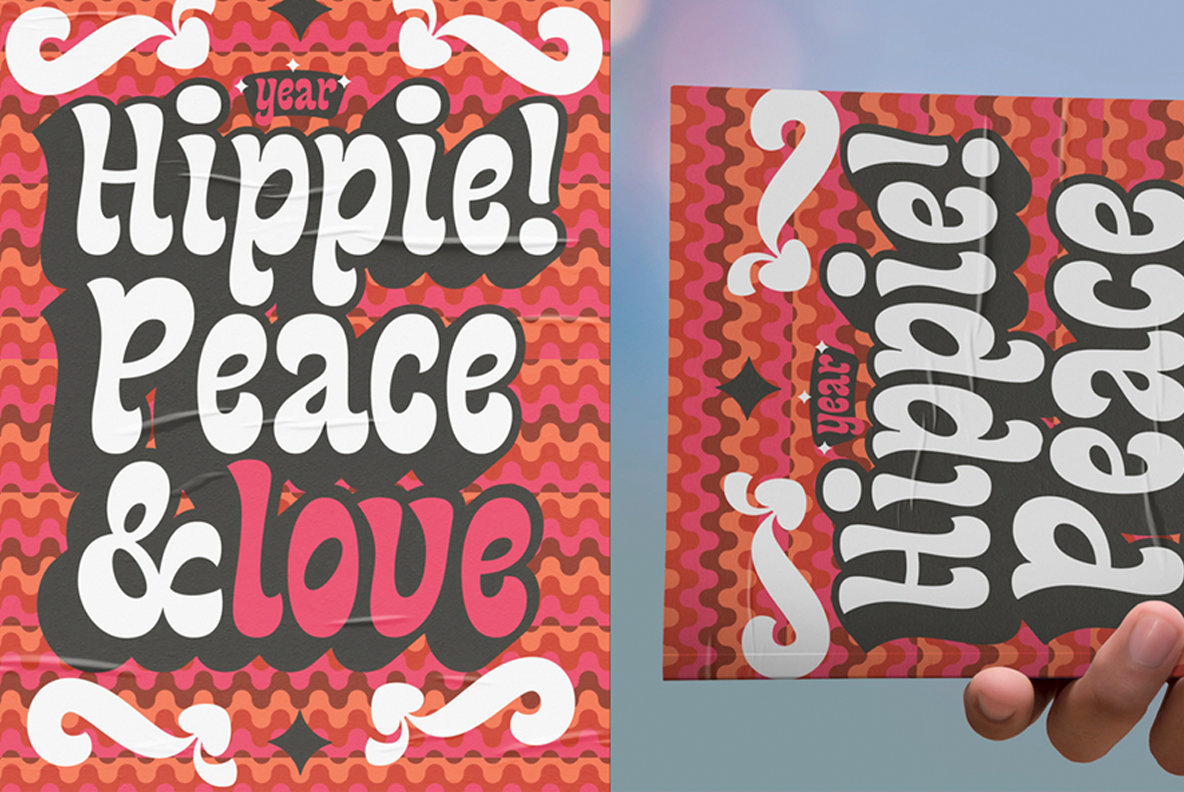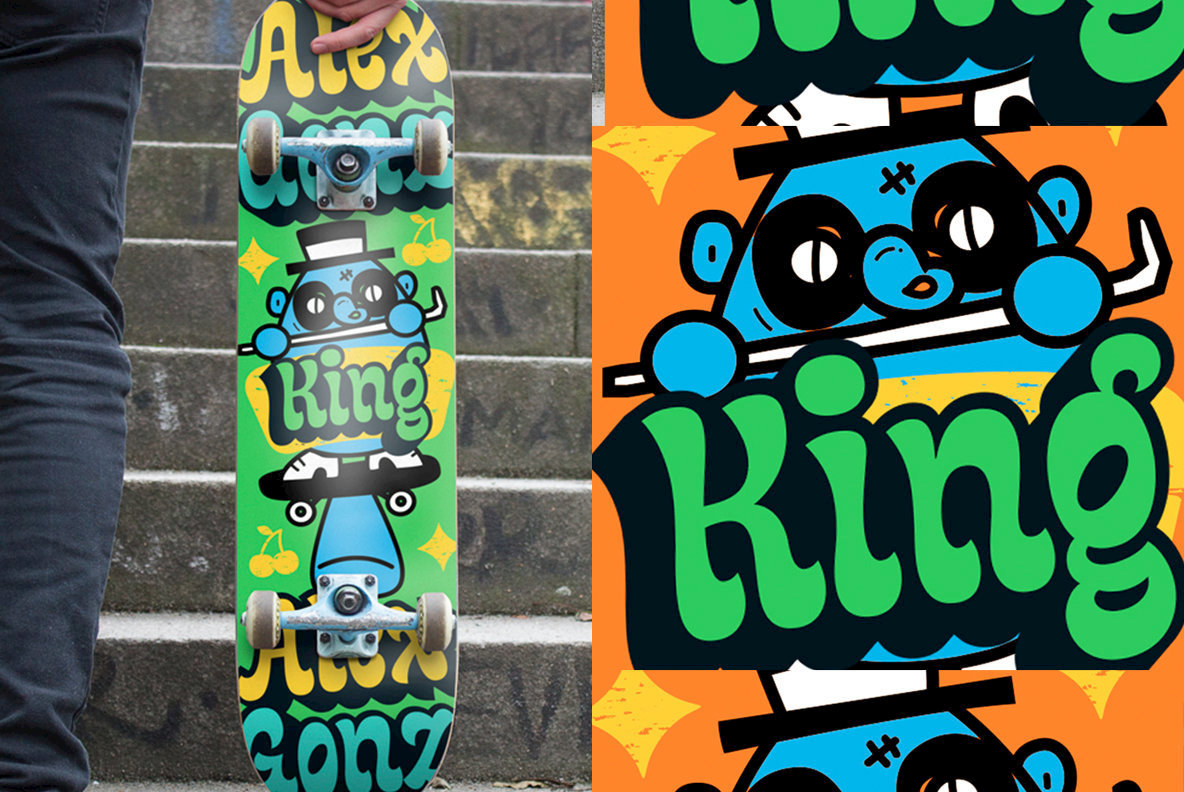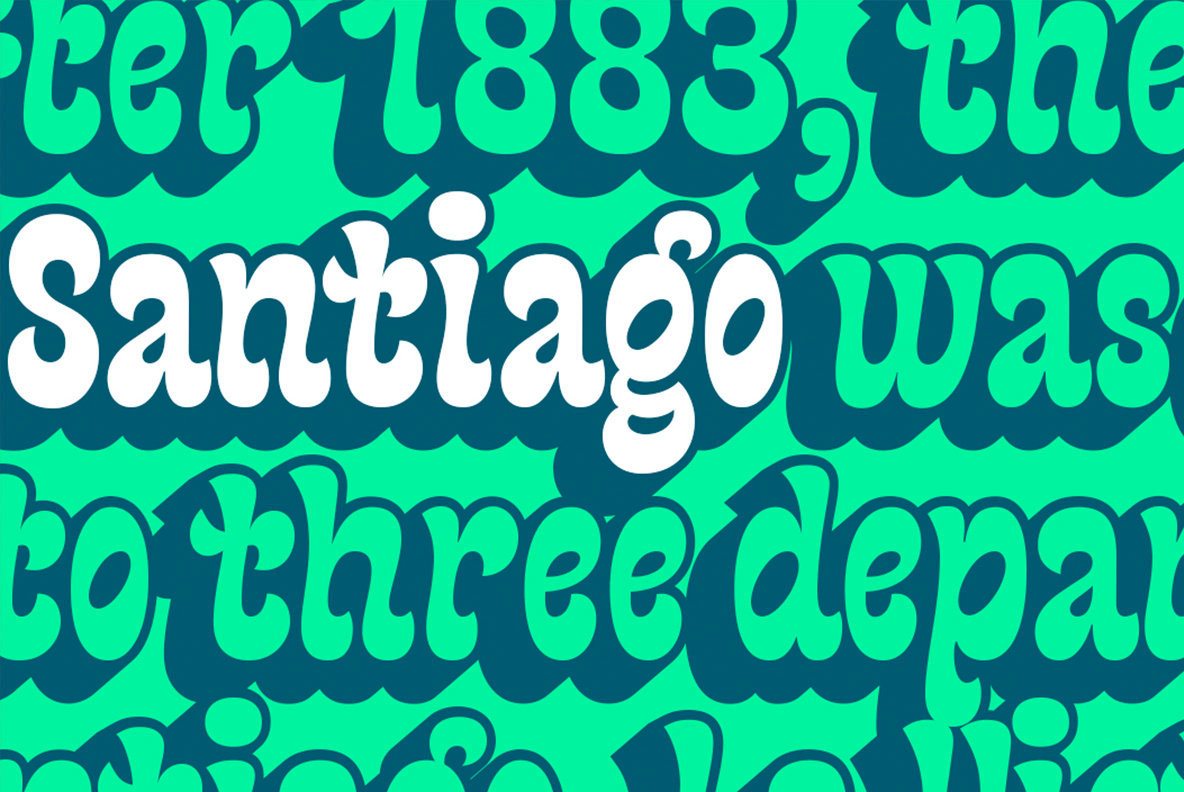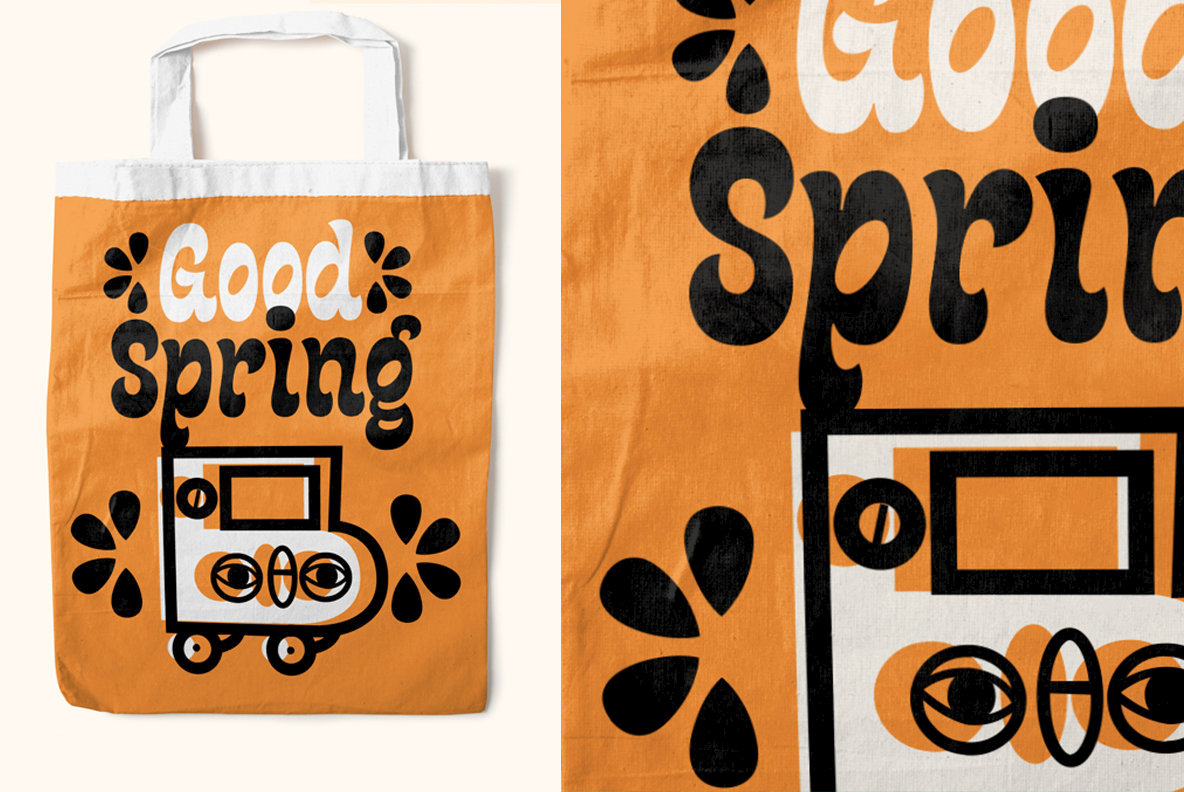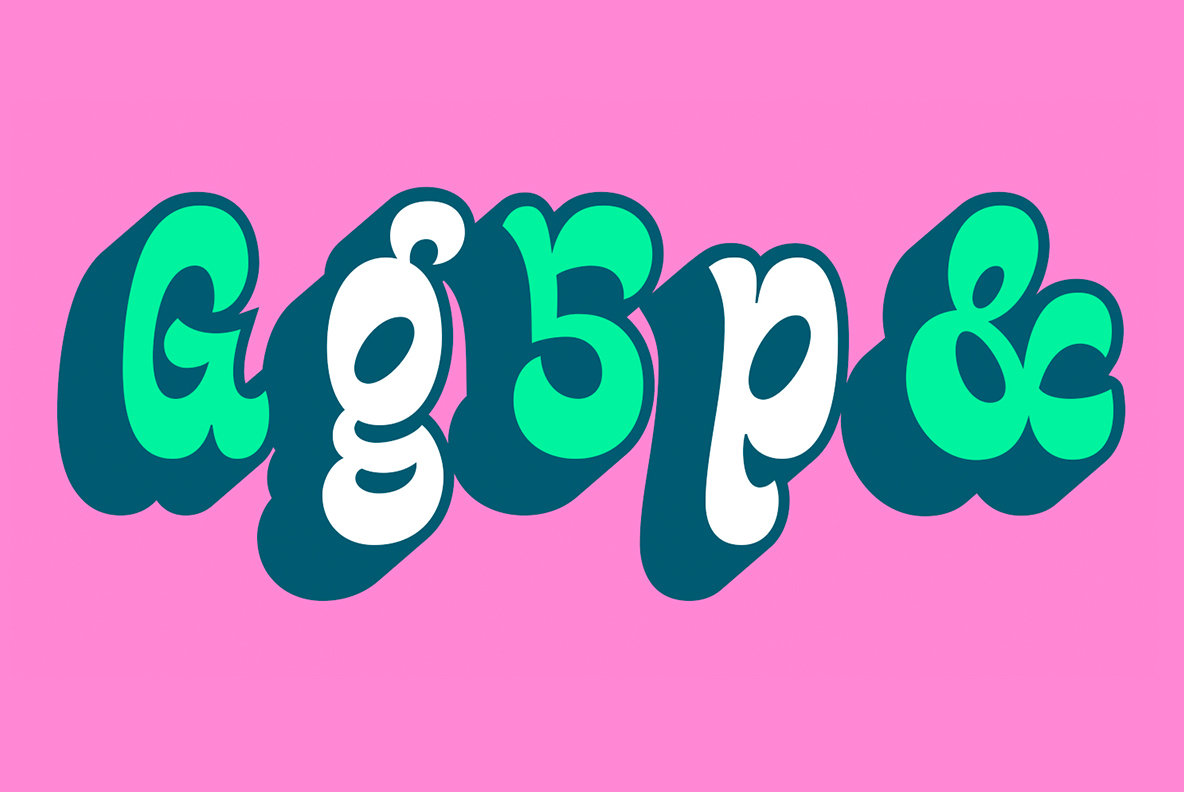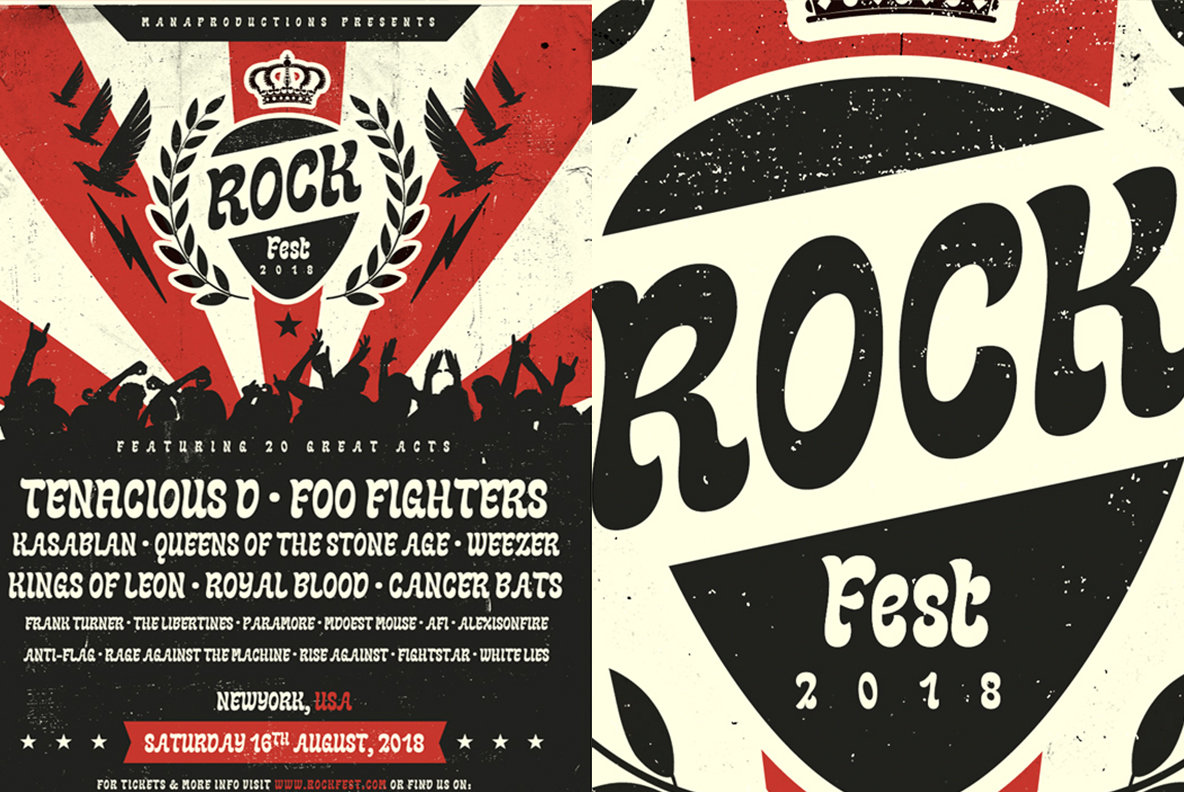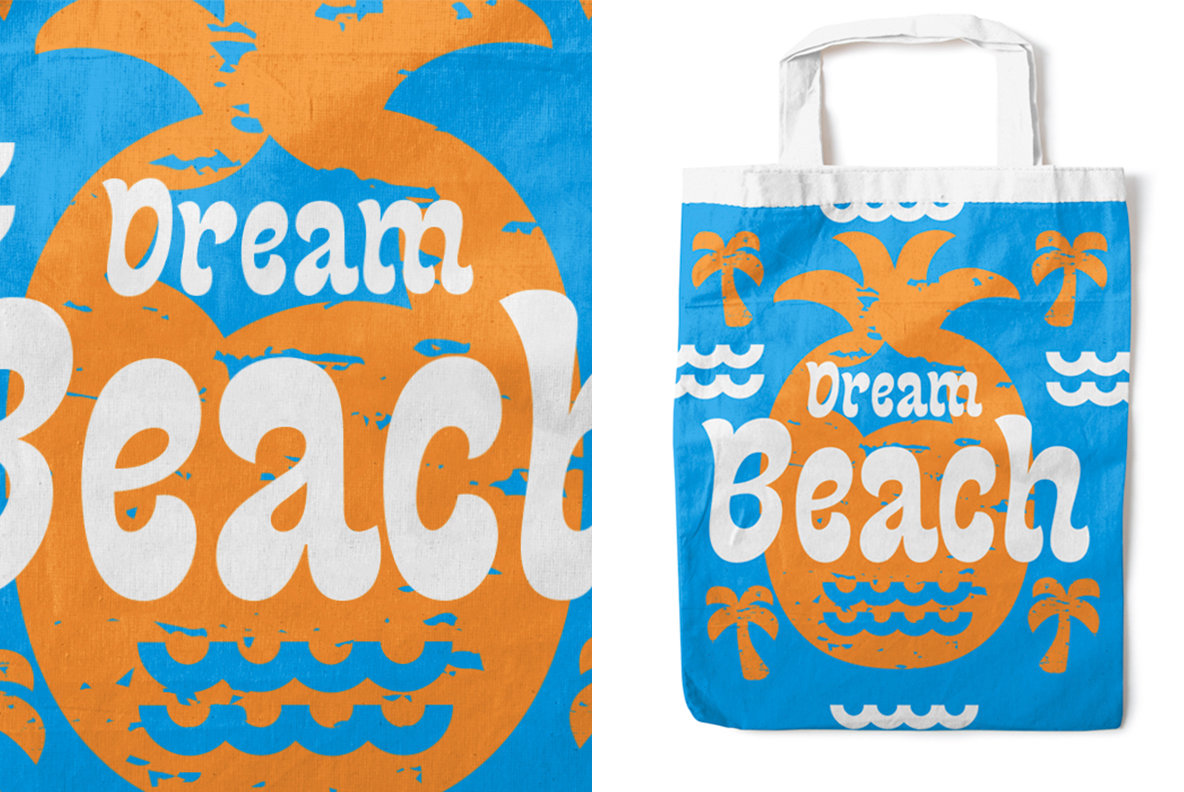
Spiro Font
Spiro Regular
Spiro Dingbats
Spiro Dingbats Rough
Spiro Ornament
Spiro Ornament Shadow Left
Spiro Ornament Shadow Right
Spiro Shadow Left
Spiro Shadow Right
Drawing inspiration from the nostalgic era of the 60s to the 80s, Spiro reimagines the playful spirit of that time. This typography is reminiscent of the hippie culture and the vibrant energy found in toys and TV series of those decades. Spiro is not just a typeface; it offers an engaging and whimsical design experience.Spiro: A Playful Typeface with Retro Vibes